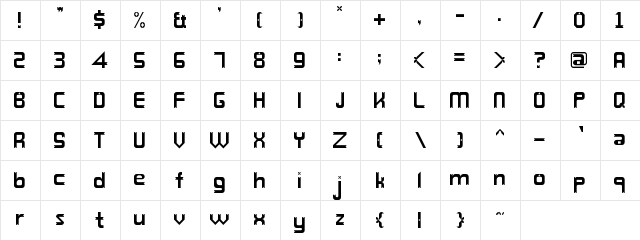
Fortoco Regular
| Designer | felyciagabriel21 |
Design Context for Fortoco Typeface
Fortoco takes a measured approach to typography — its balanced proportions and neutral character make it a reliable workhorse for both digital and print work.